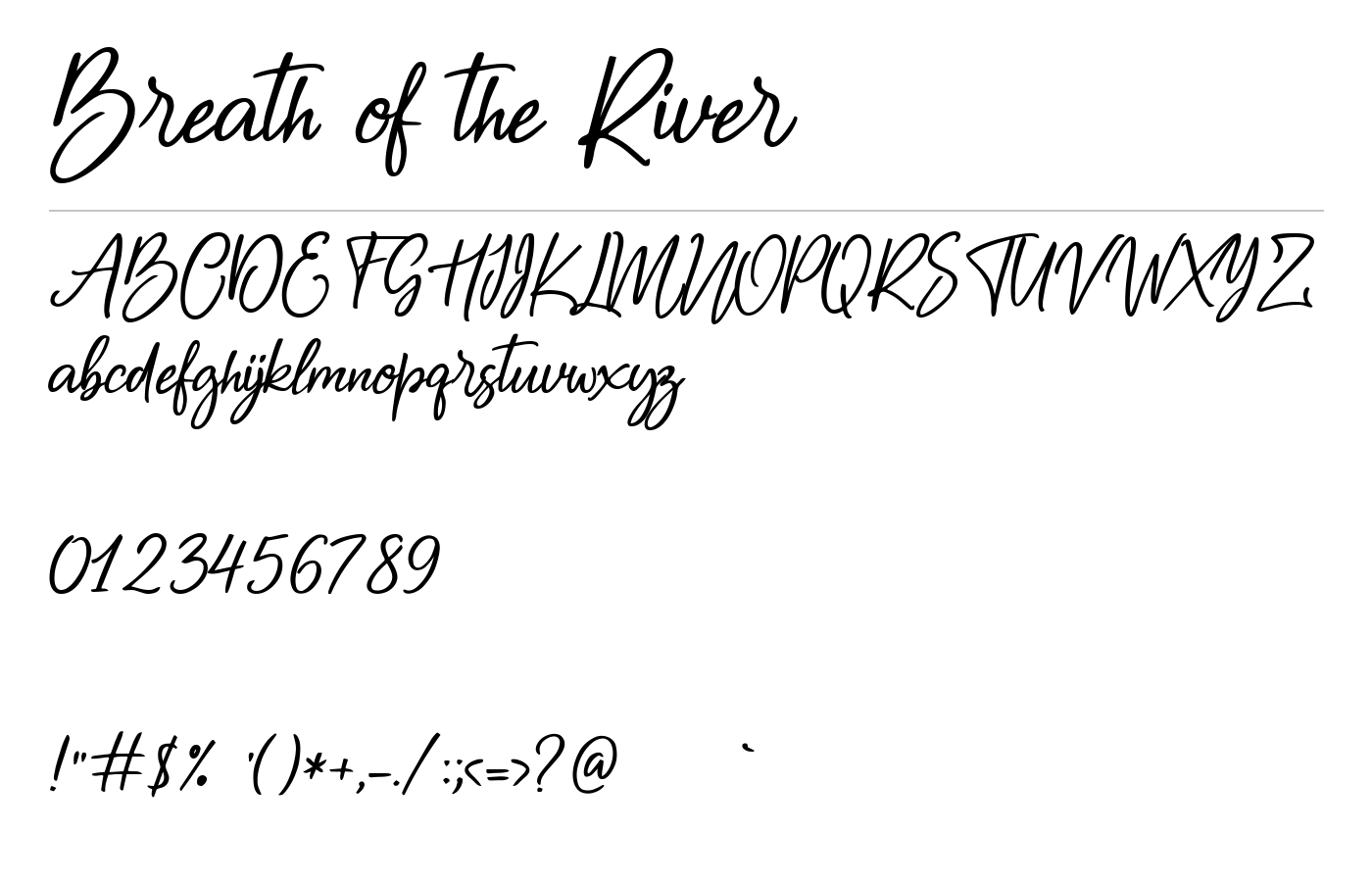
Breath of the River is a graceful, handwritten script font that features elegant, flowing letterforms with a medium weight and a lively rhythm. Its natural, slightly casual style makes it perfect for creative, personal, or romantic designs such as invitations, branding, and social media, bringing a warm and approachable feel while maintaining clarity and sophistication.
Breath of the River Font
About Breath of the River Font
| Font family | Breath of the River Font |
| Designer | BlackFridayFont |